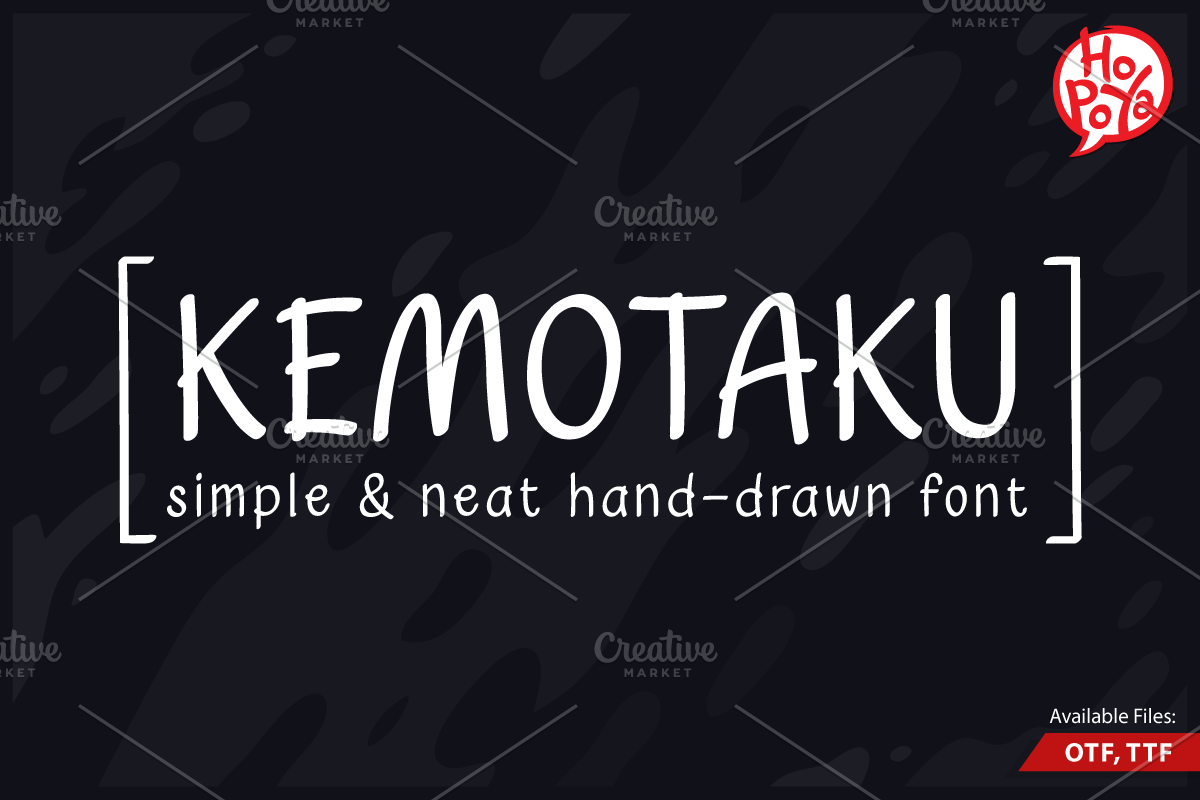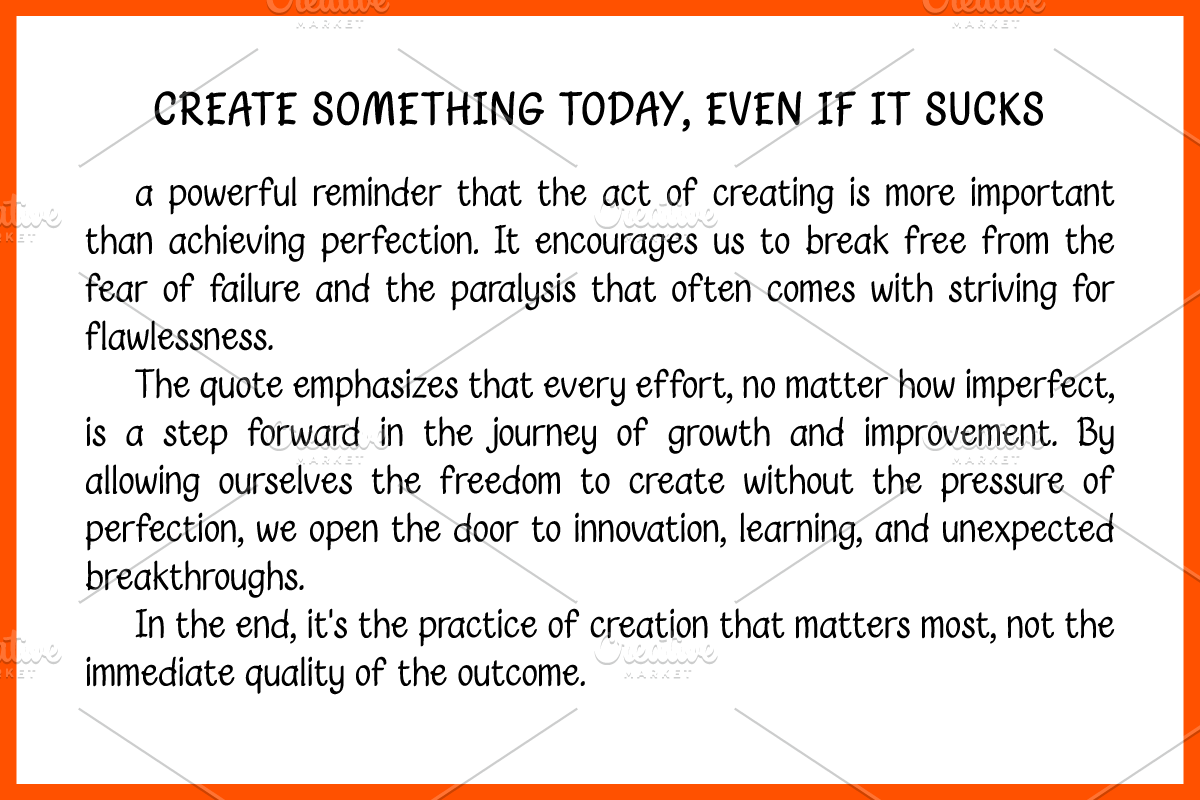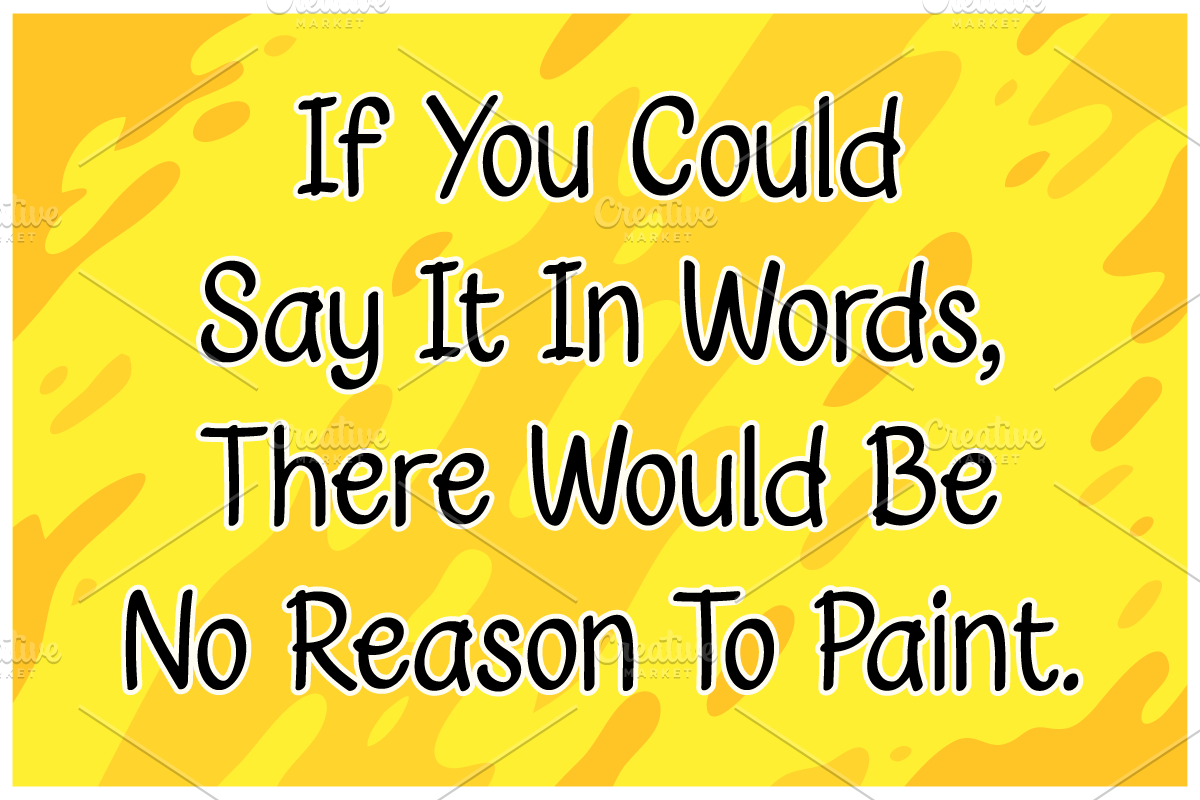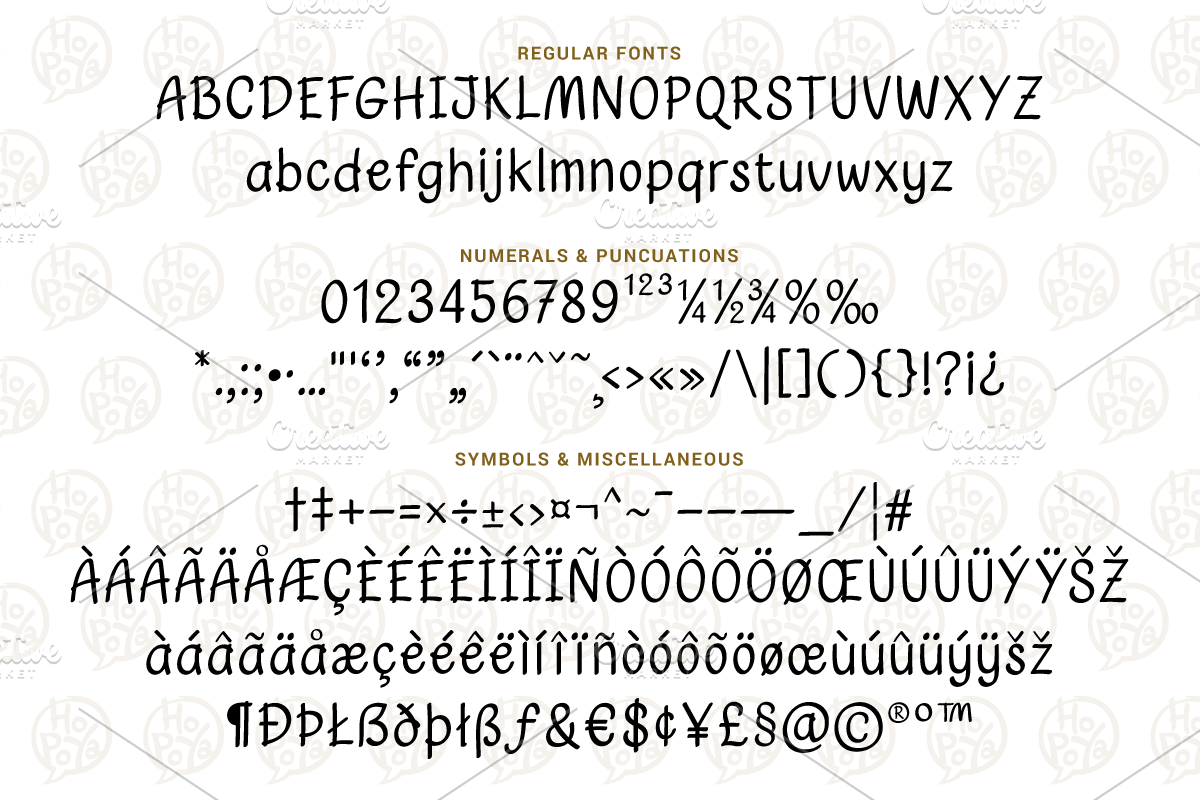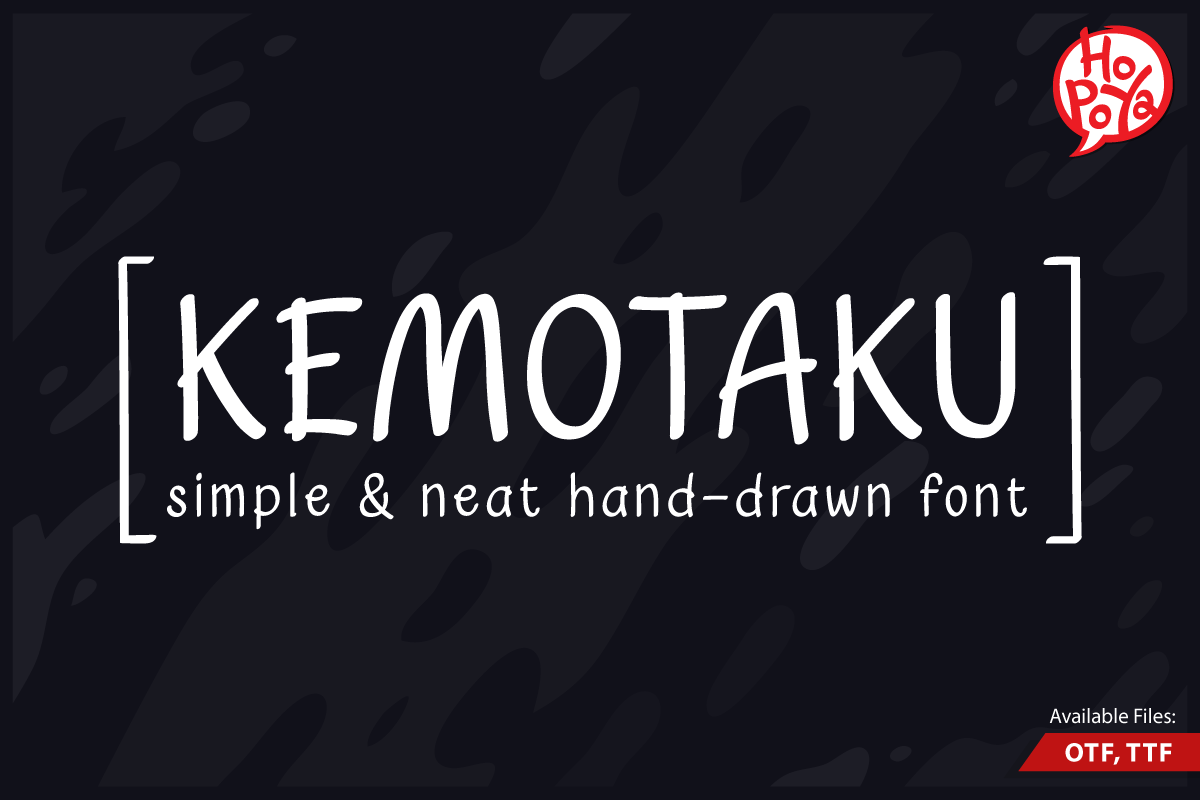
Kemotaku Font
Kemotaku Font is a hand-drawn font with simple & neat style. Comfortable to read & still relevant for modern use. Suitable for Story Books, Children Books, Quotes, etc. The font includes uppercase and lowercase multilingual letters, numbers, symbols, and punctuation.